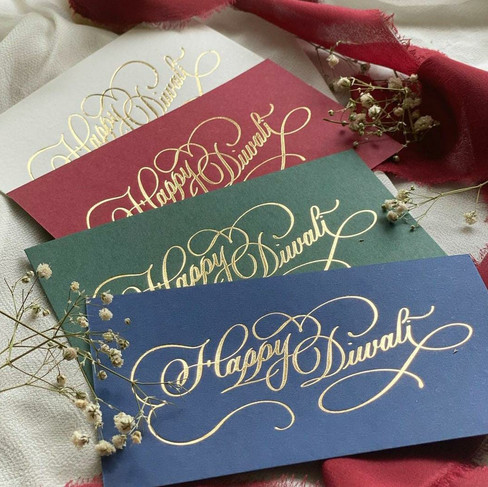
5 Ways To Use Your Calligraphy
Have you been doing calligraphy for a while and want to go a step further? By a step further - I don't particularly mean starting a creative business (I'm all for that as well) but a lot of calligraphers also just like to do it as a hobby!
This blog is for them, I wanna take you through some really small ways in which you can incorporate calligraphy in your day-to-day life.
1.Place Cards/ Name Tags
The most simple way to get started with your calligraphy is to make place cards for dinners at home. You can start with simple tags made on paper and can then explore other surfaces such as handmade sheets, acrylic, and wrap around tags for napkins (as seen in the third image)
2. Gift Tags
A great way to personalize gifts is to create tags to go with them! You can personalize it with names, occasions and lots more!
3. Handwritten Letters/Notes
One of the most beautiful ways to express love is through handwritten letters. Go old school and write letters and notes for your loved ones! Add some flowers and seal it with wax to create the perfect vintage vibe.
4. Fuse your calligraphy with an already existing hobby/skill
This has got to be one of my favorite things to do, fusing calligraphy with an existing hobby can sometimes give out amazing results. Here are some of my endeavors haha!
If you're a pastry chef, try writing on your deserts. If watercolors is your jam, use it to create beautiful backgrounds on which you can write. If you enjoy gardening, then maybe write on those beautiful leaves and flowers.
5. The sky is the limit
There is a whole world to explore and if you're further interested in trying out new things and investing your time and resources in this artform - the world is your oyster. You can personalize coasters, make cake toppers, engrave on glass (that's slightly advanced but wanted to show it to you anyway), create signage boards for events, or simply paint a motivational quote on your wall. Let me show you pictures...
There are numerous ways in which you can use calligraphy in your daily life as well and I hope this blog inspires you to do so :)